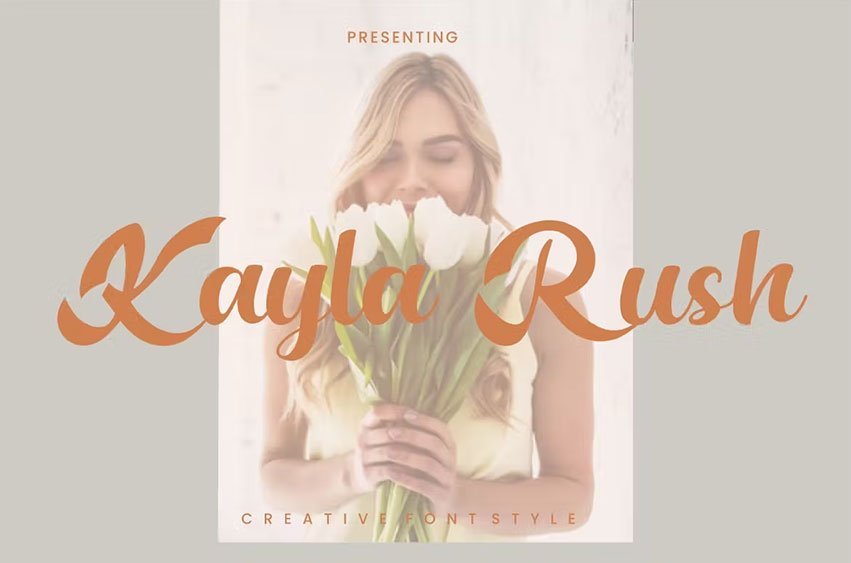
KaylaRush Font is a beauty and elegant script font. So perfect for you who needs a typeface for logo designs, magazine, social media, brochure, and many more.